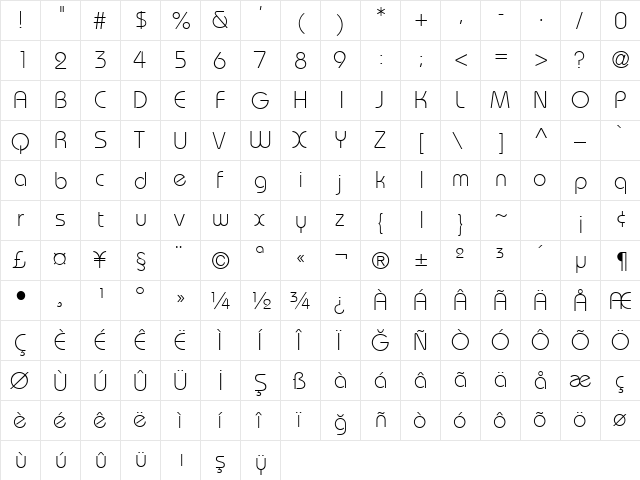
TR Bahamas Light Plain
Design Context for TR Bahamas Light Typeface
TR Bahamas Light takes a measured approach to typography — its balanced proportions and neutral character make it a reliable workhorse for both digital and print work. The delicate stroke weight brings airiness and refinement to layouts.